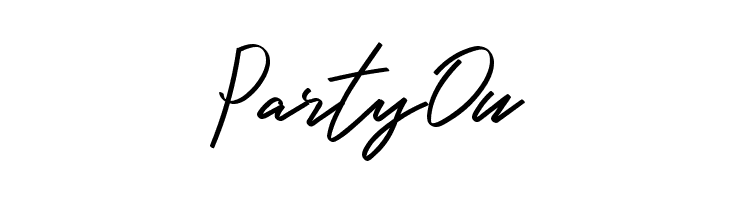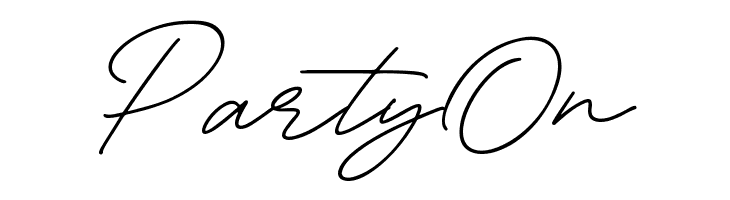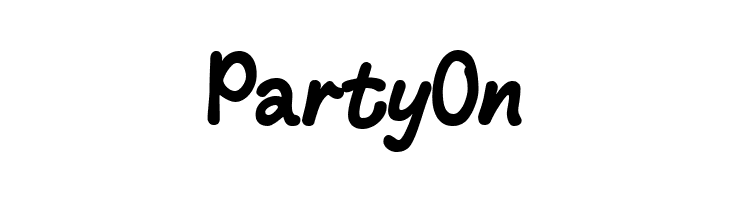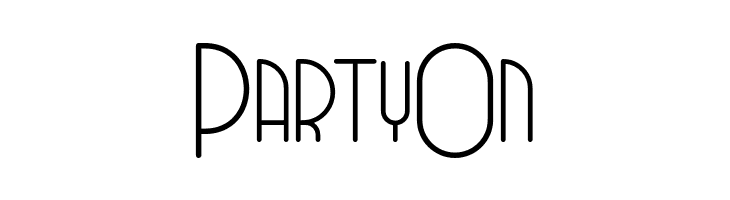
• BaltimoreSmallCap
A modern, geometric font with rounded edges and consistent stroke widths.
• Balune
A playful and bold script font with a handwritten feel.
• Bambang
A dynamic handwritten font with fluid, continuous strokes and a casual elegance.
• Bambang Signature vol 2.0
A fluid, handwritten script font with elegant, flowing lines.
• Bambino_PersonalUseOnly
A playful, slanted handwritten font with medium contrast and a dynamic style.
• Bambiraptor
A playful, bold outline font with a three-dimensional appearance.
• Bambola Regular
A bold, decorative font with textured, three-dimensional letterforms.
• Bamboo
A classic serif font with elegant strokes and moderate contrast.
• BAMBOO chopsticks
A geometric, modern font with clean lines and rounded corners, ideal for tech-inspired designs.
• Bamboo de Saipan